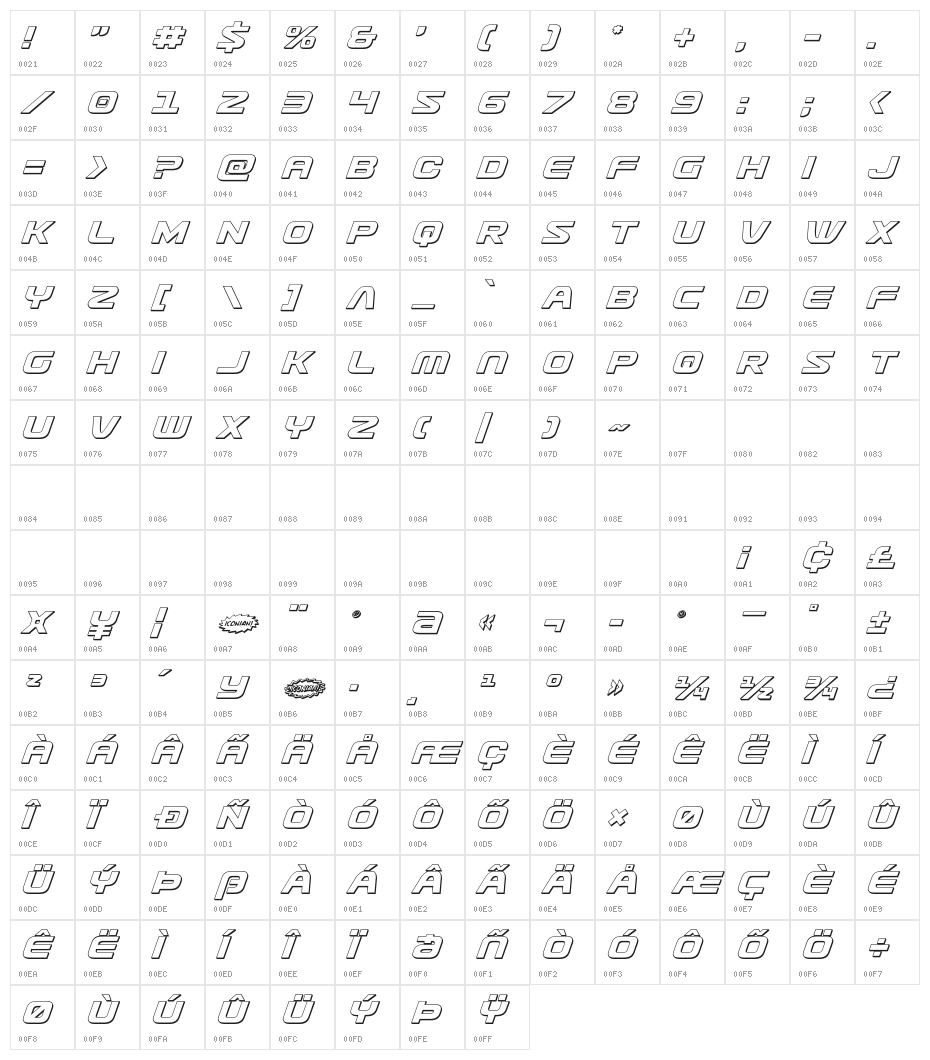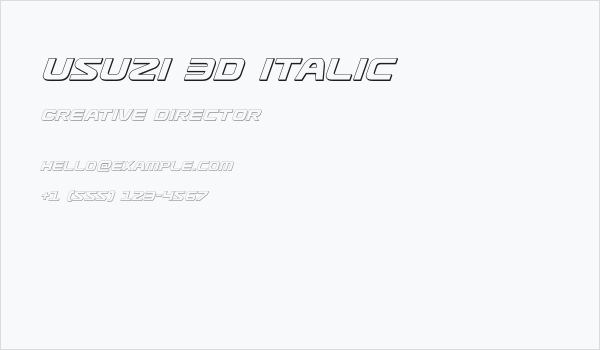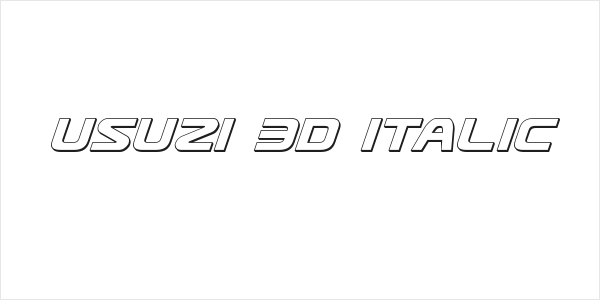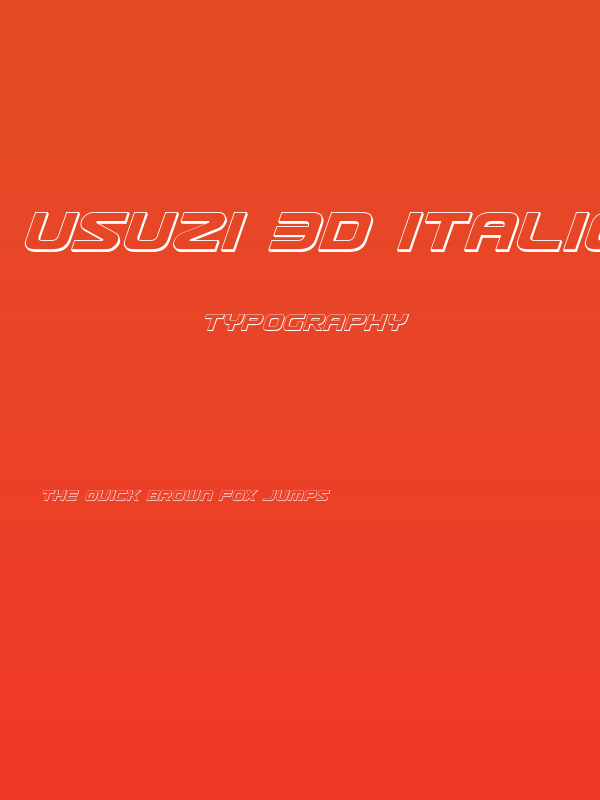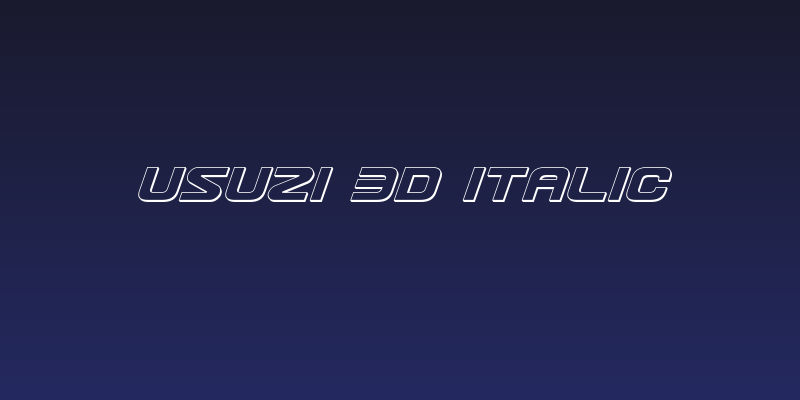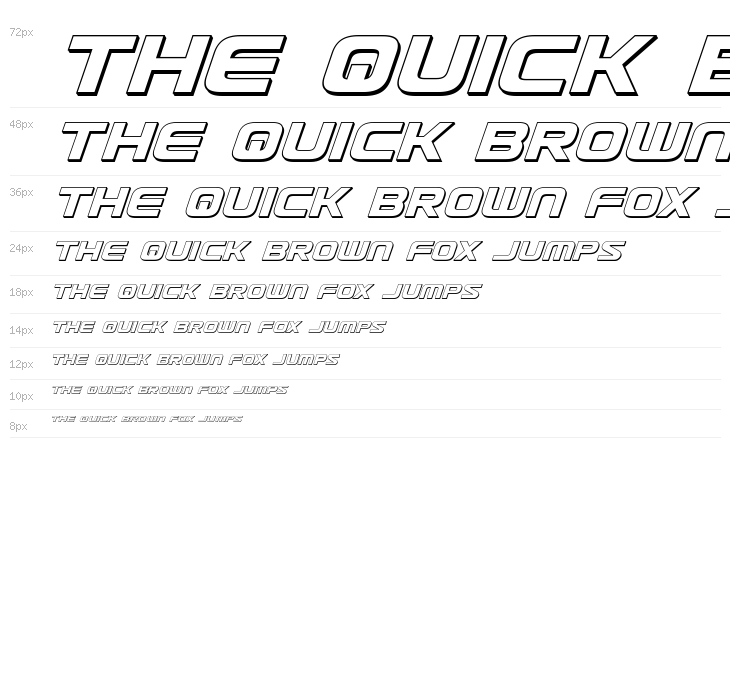
Usuzi 3D Italic Font
Usuzi 3D Italic Description
This font features a dynamic and futuristic 3D outline style, characterized by its italicized, forward-leaning posture. The letters are bold and have a distinct geometric structure, giving them a modern and tech-inspired appearance. The 3D effect is achieved through a clever use of outlines, creating a sense of depth and movement. The uppercase and lowercase letters maintain a consistent style, with clean lines and sharp angles. The numerals and special characters follow the same design principles, ensuring uniformity across all glyphs.
| Proposed Projects | Ideal for tech-related branding, video game titles, futuristic posters, and digital artwork. |